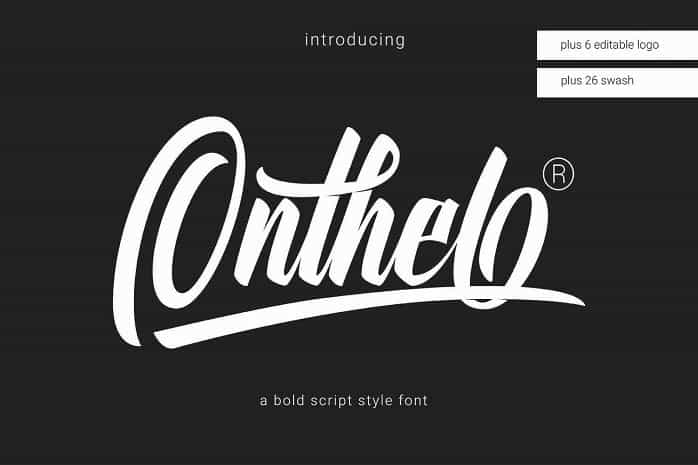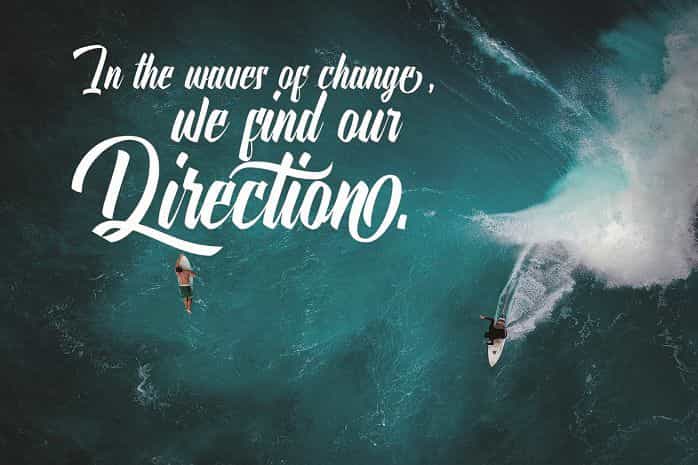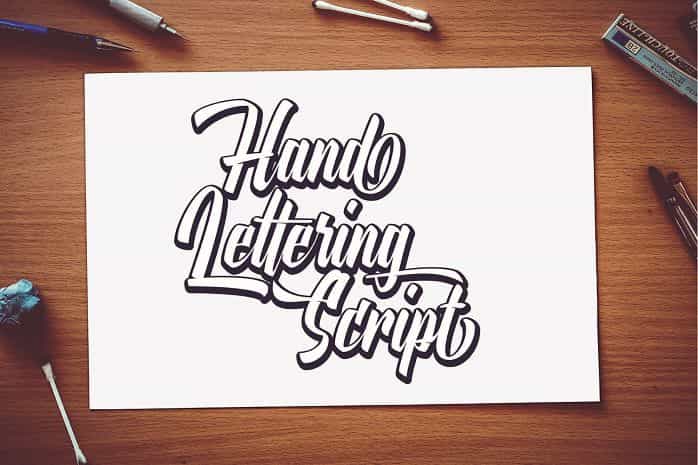
Introducing Onthel Font. A new, bolder script font. This font will help you to make your designs perfect and different. It is was created by Grayscale. The Onthel is a bold-script with a note of rhythmic brush that is very cute and has personality. It was designed in the spirit of Onthel Bicycles, this is a Dutch design bicycle that has an upright sitting position and is known for its very strong and high-quality reputation.